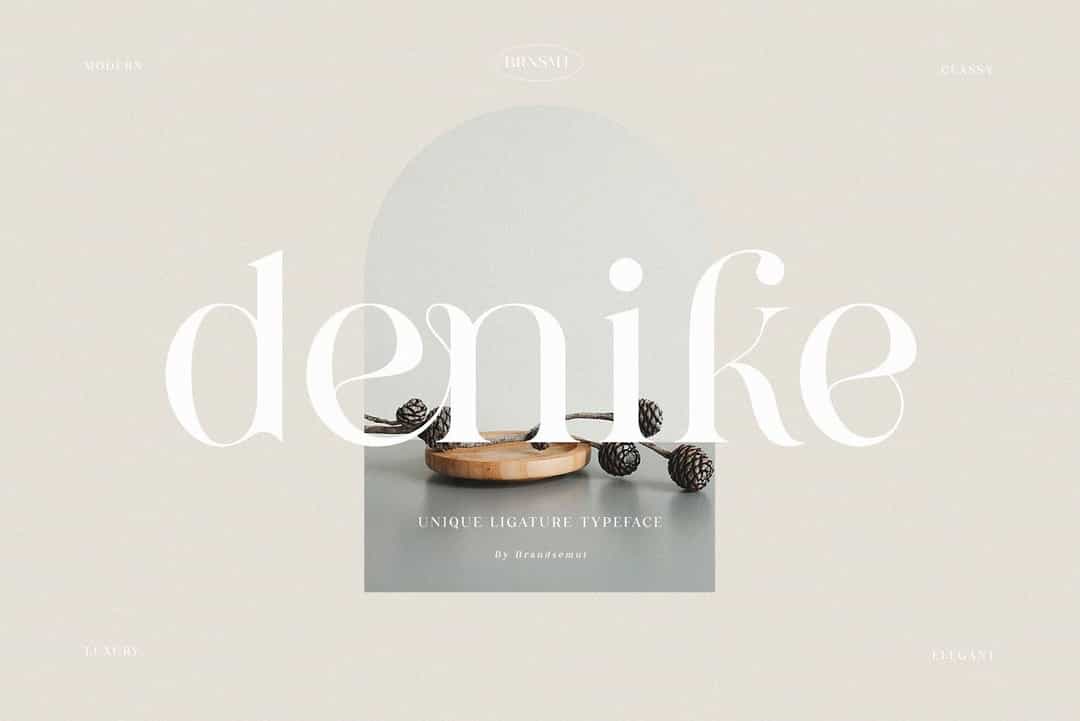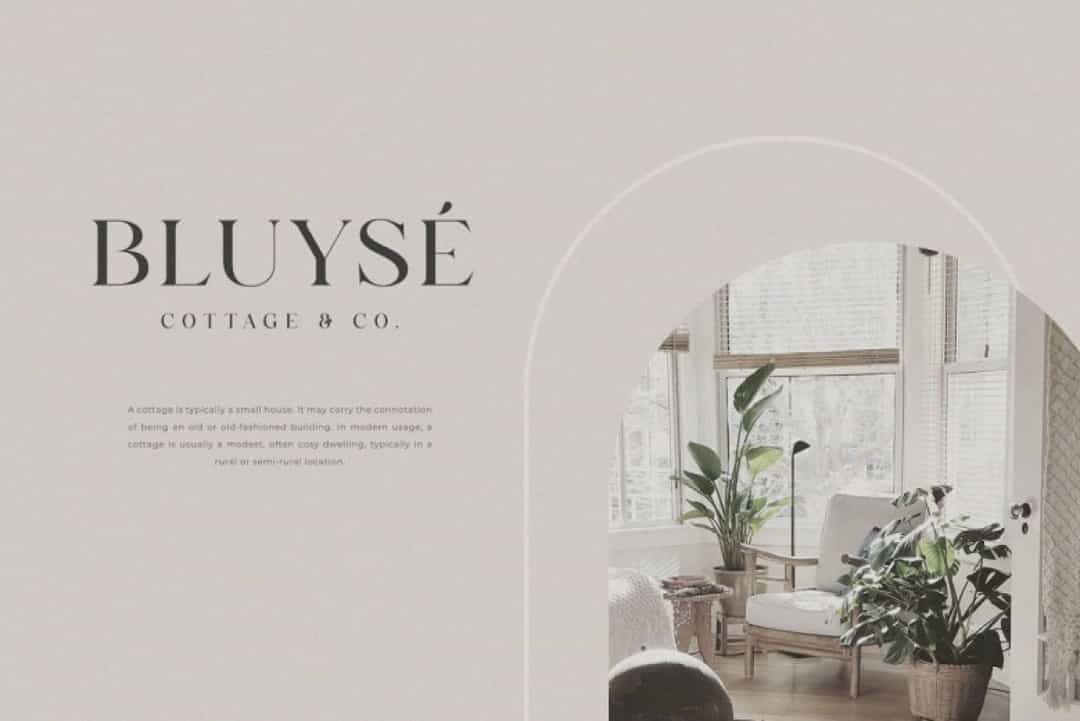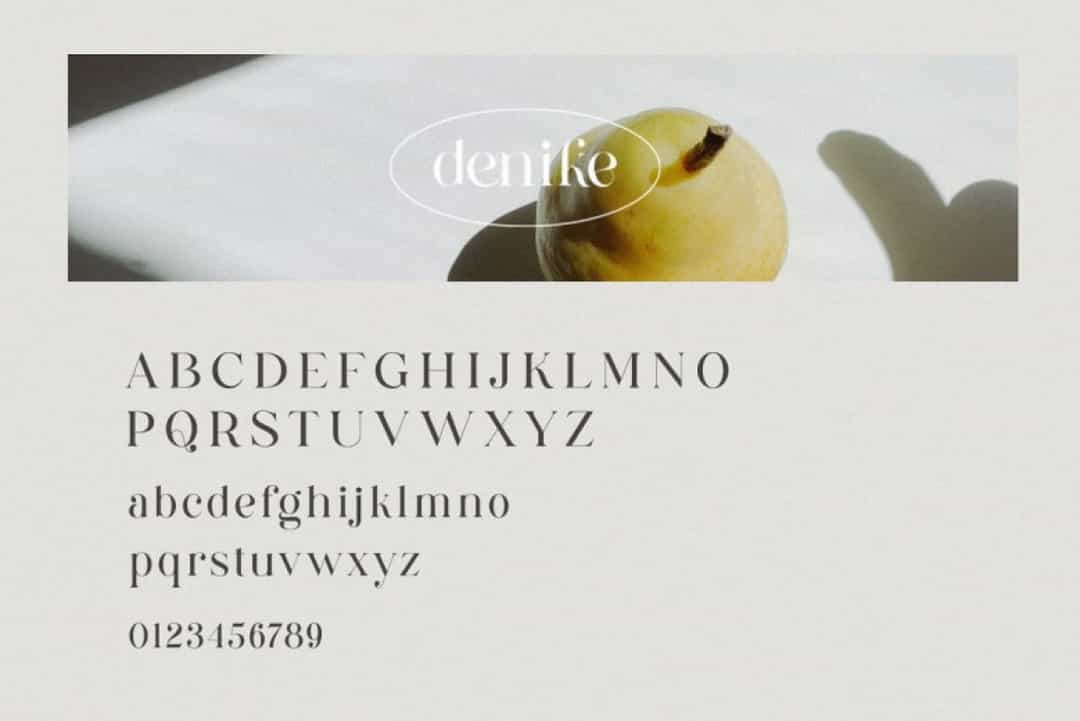
Denike the font is a stylish and elegant serif font – both modern and nostalgic at once – suitable for use on magazine covers, logos, social media accounts and other applications. Let it help your next project!